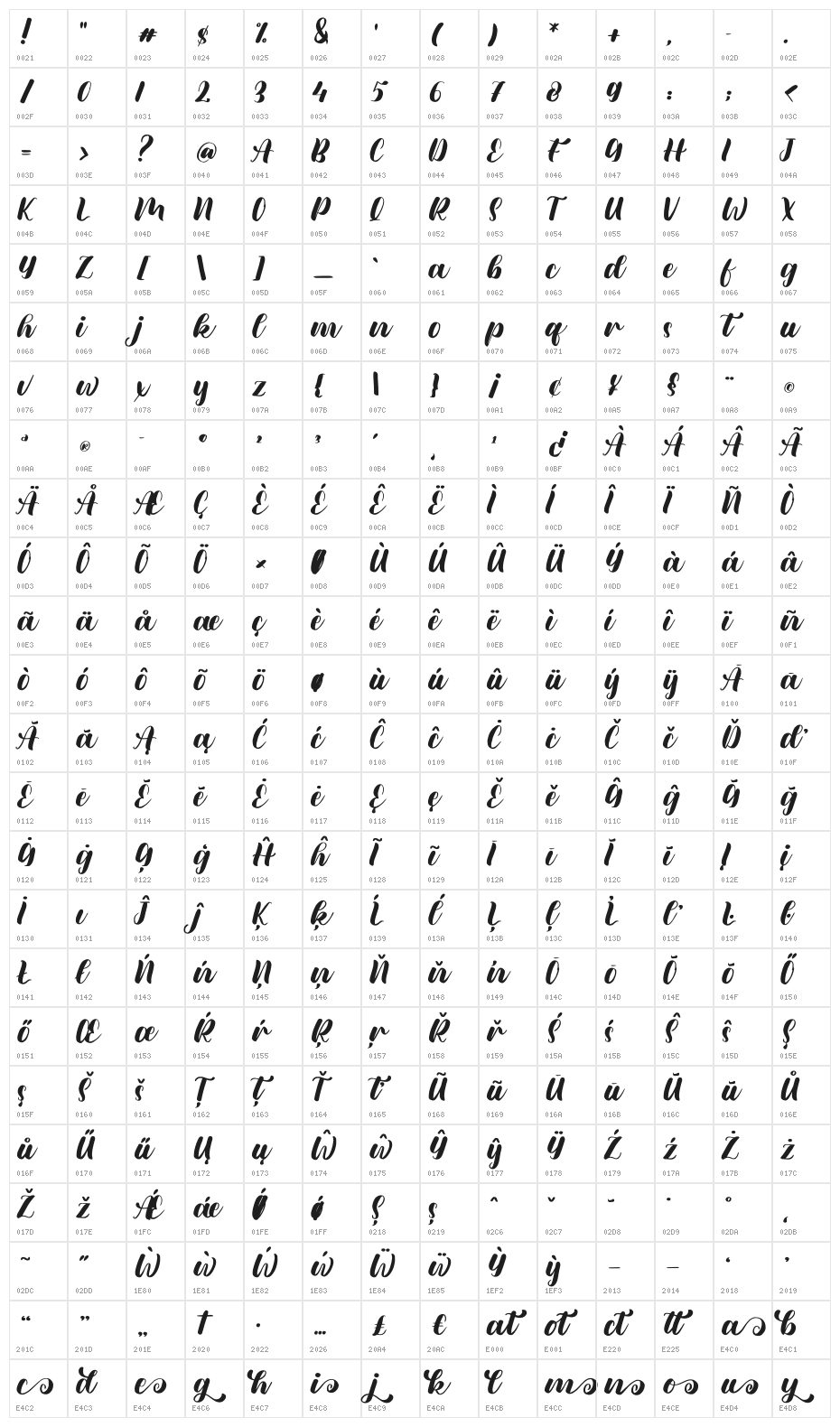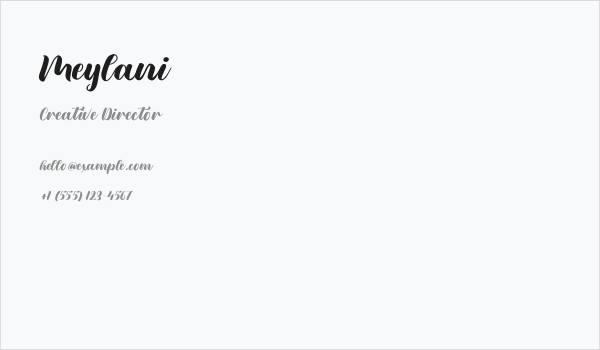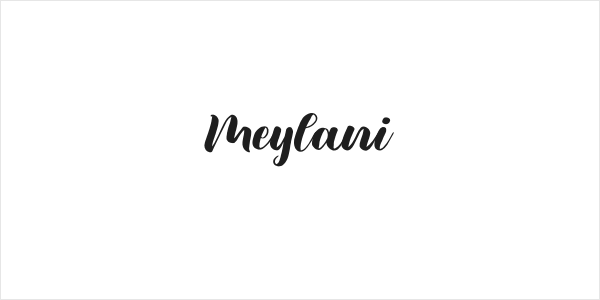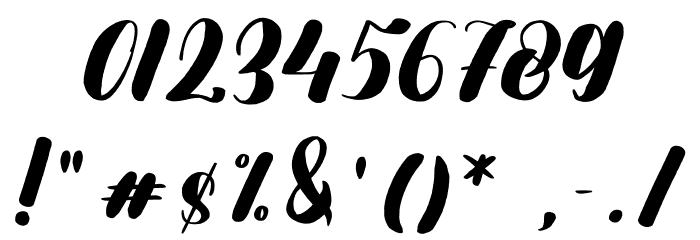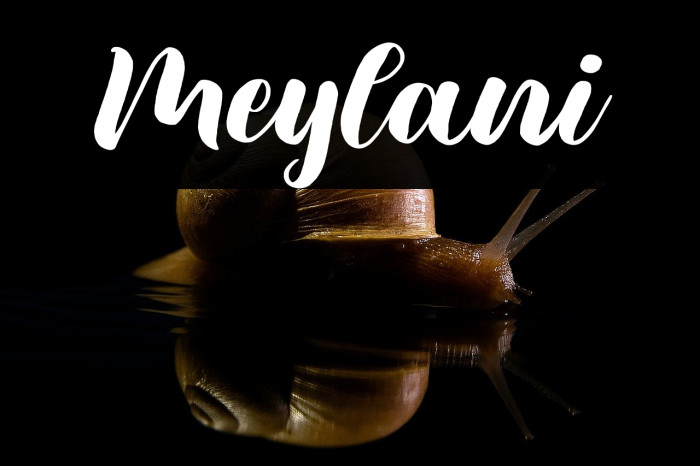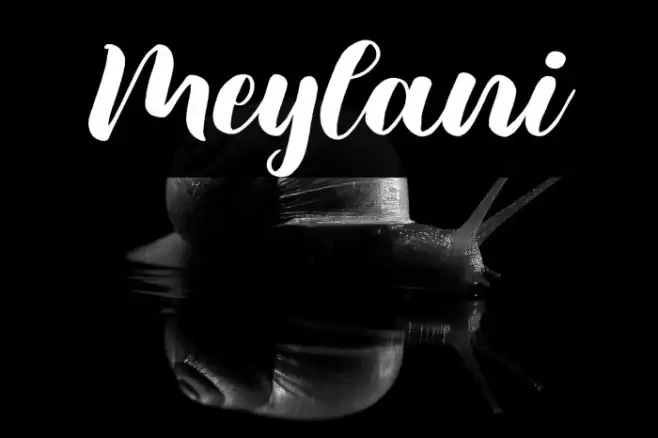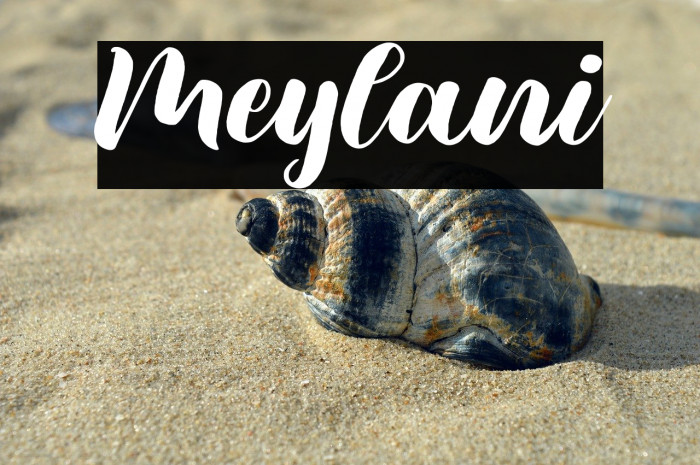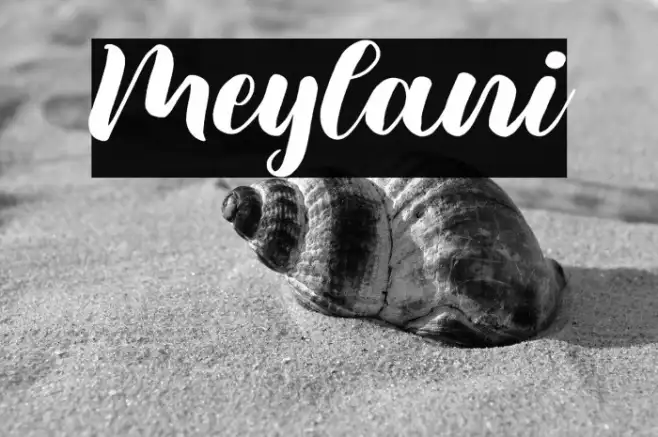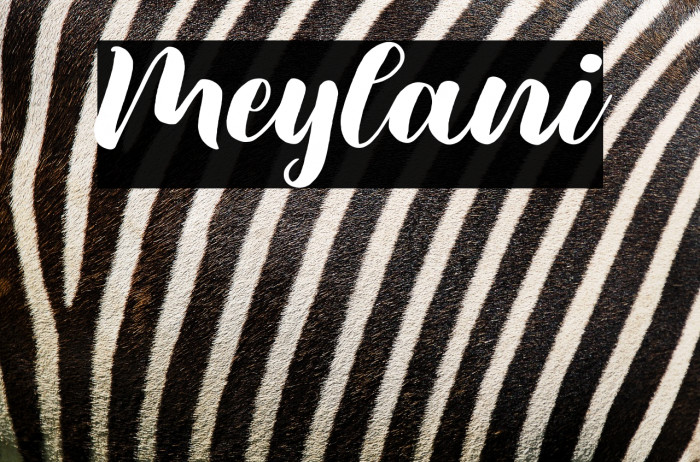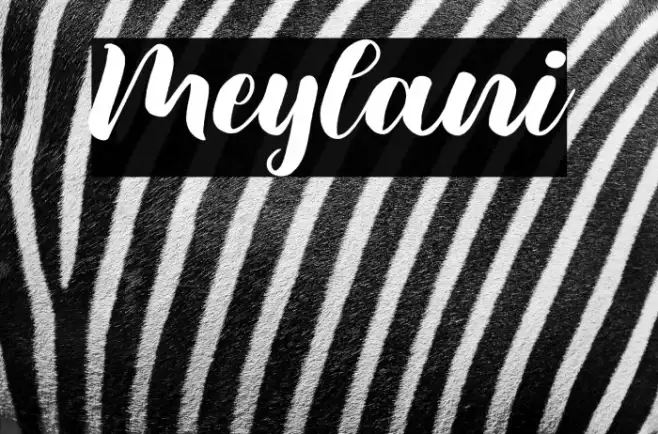
Meylani Font
Meylani Description
This font features a bold and expressive script style, characterized by its flowing, cursive letters that convey a sense of elegance and dynamism. The uppercase letters are particularly striking, with sweeping curves and a sense of movement that adds a touch of sophistication. The lowercase letters maintain this fluidity, offering a harmonious blend of form and function. Numbers and special characters are designed with the same attention to detail, ensuring consistency throughout. The overall appearance is both artistic and legible, making it suitable for a variety of creative applications.
| Proposed Projects | Ideal for wedding invitations, branding, greeting cards, and artistic projects. |